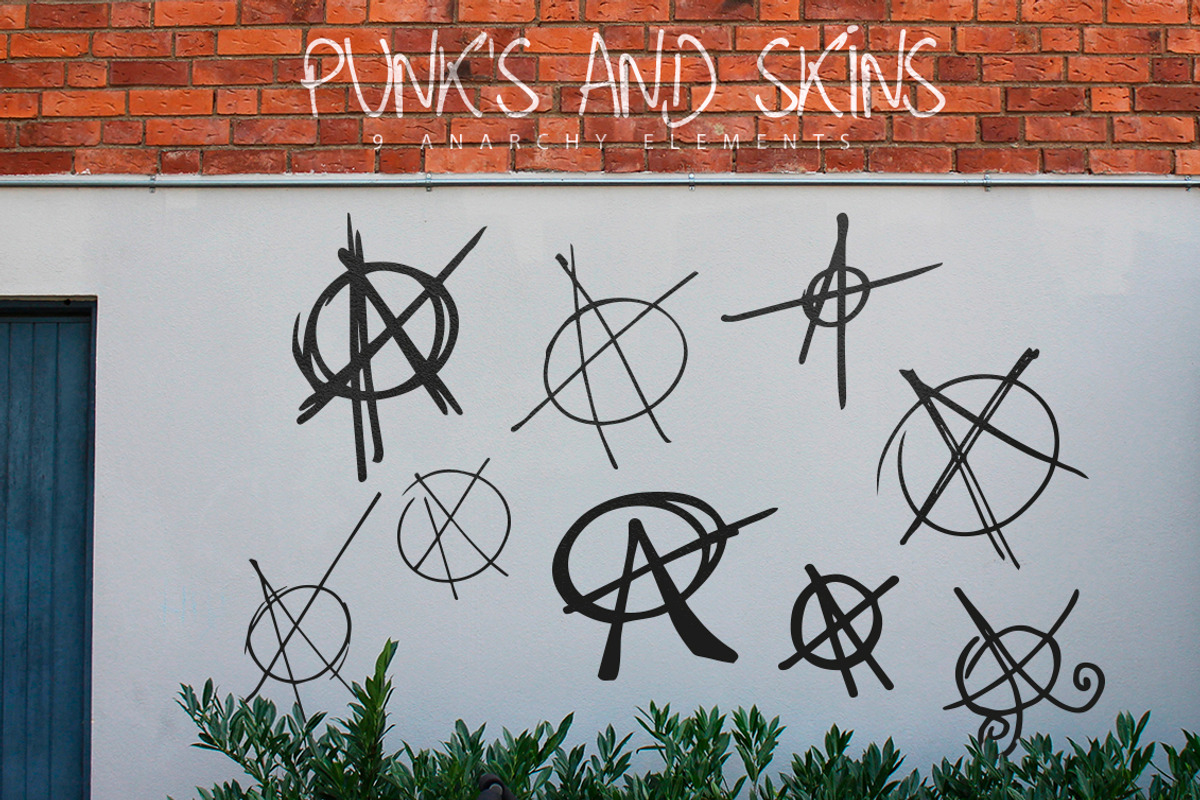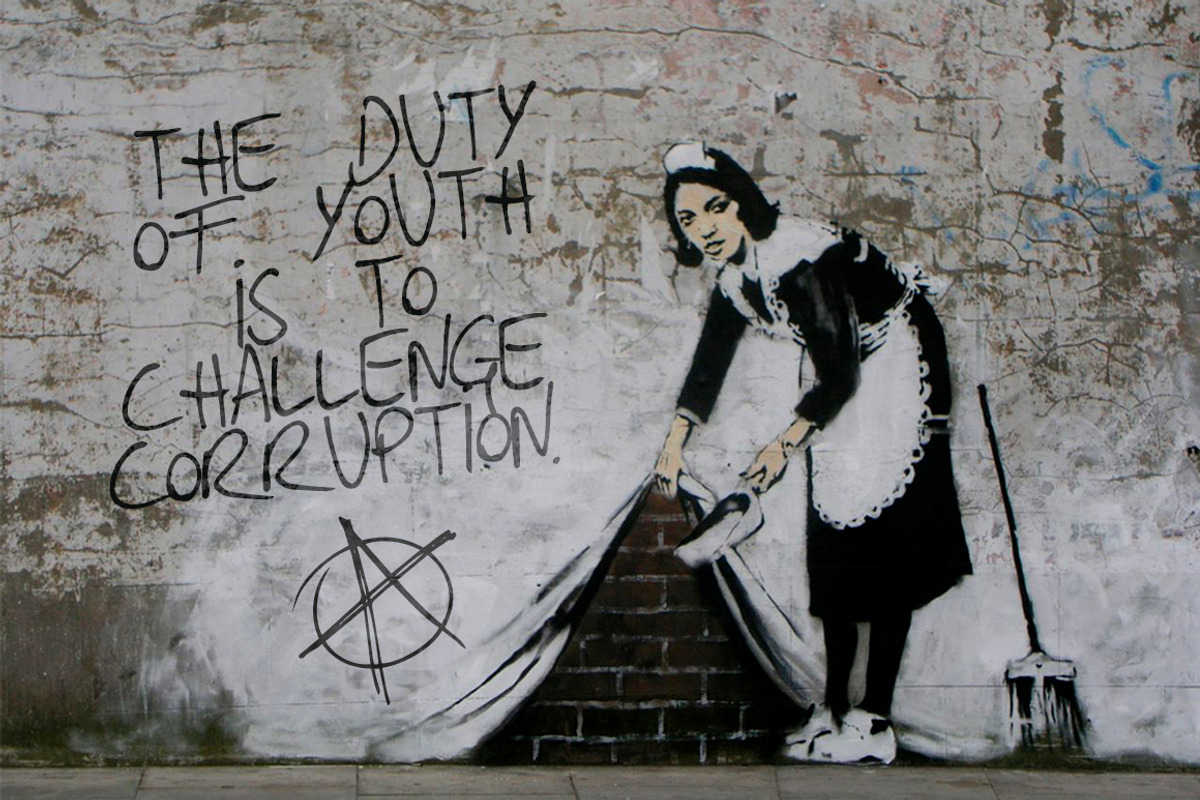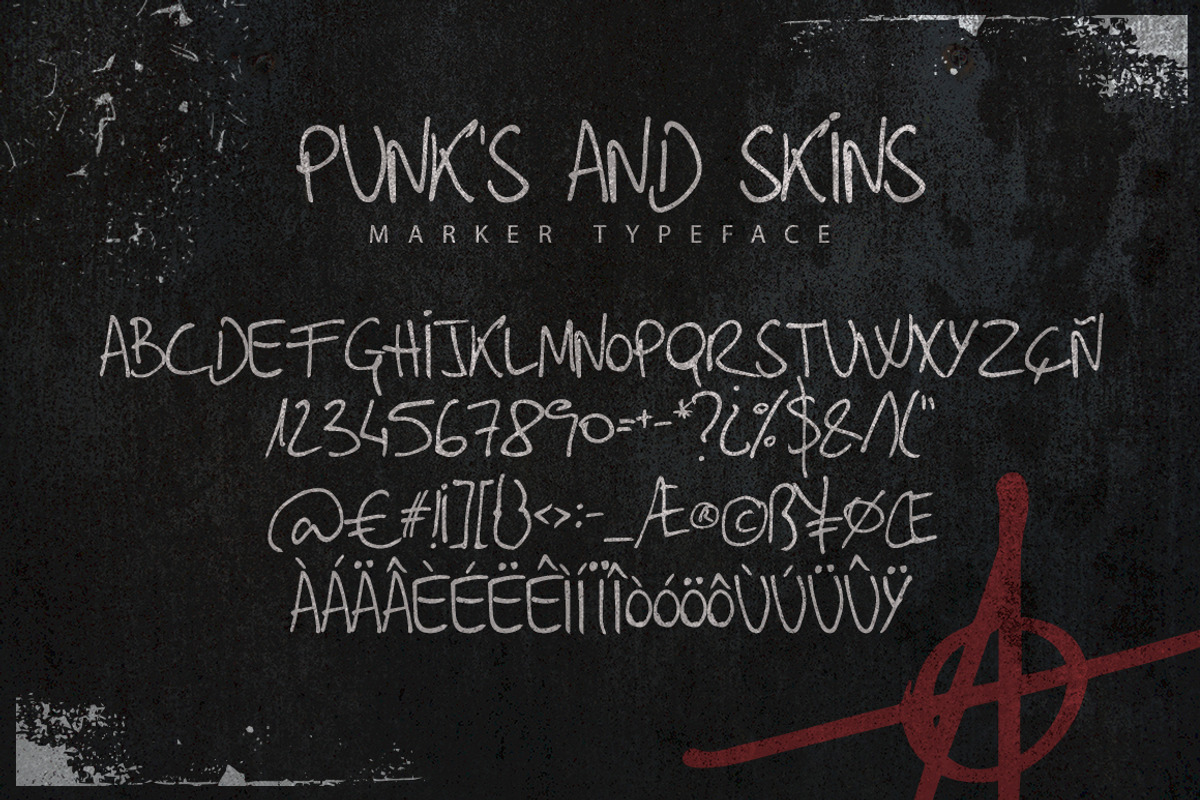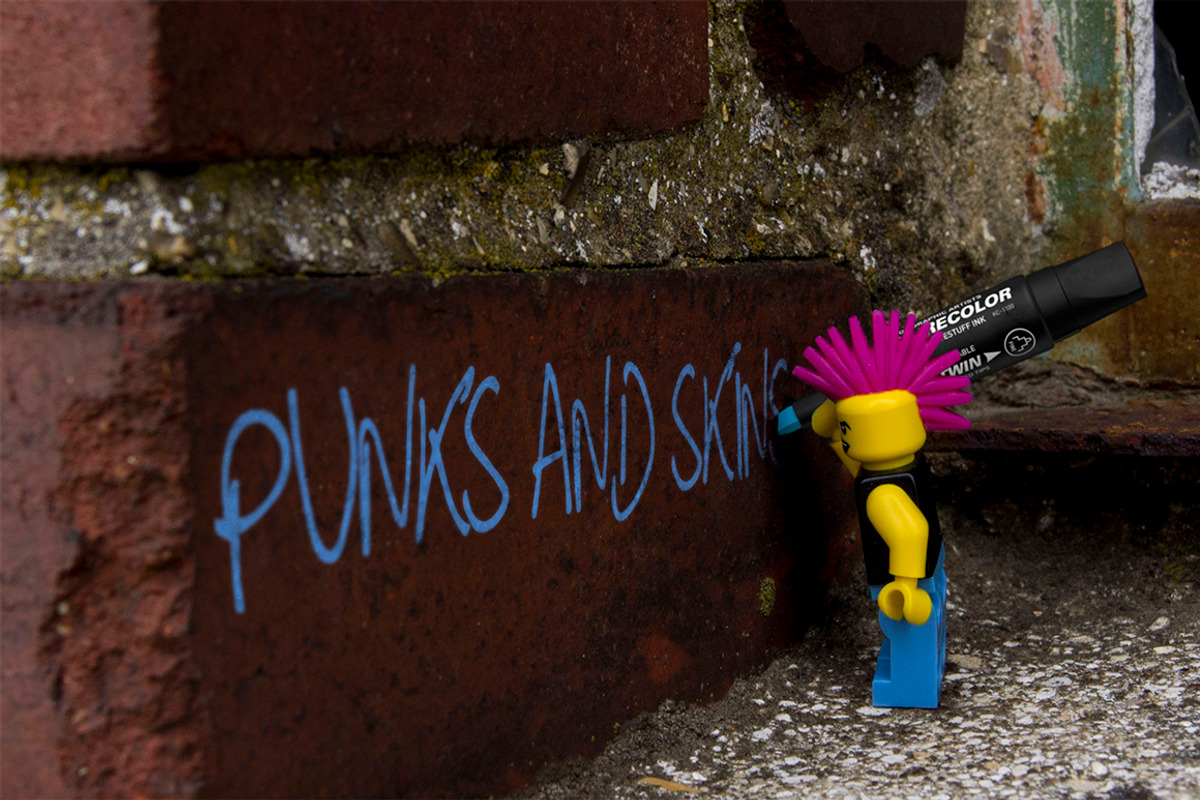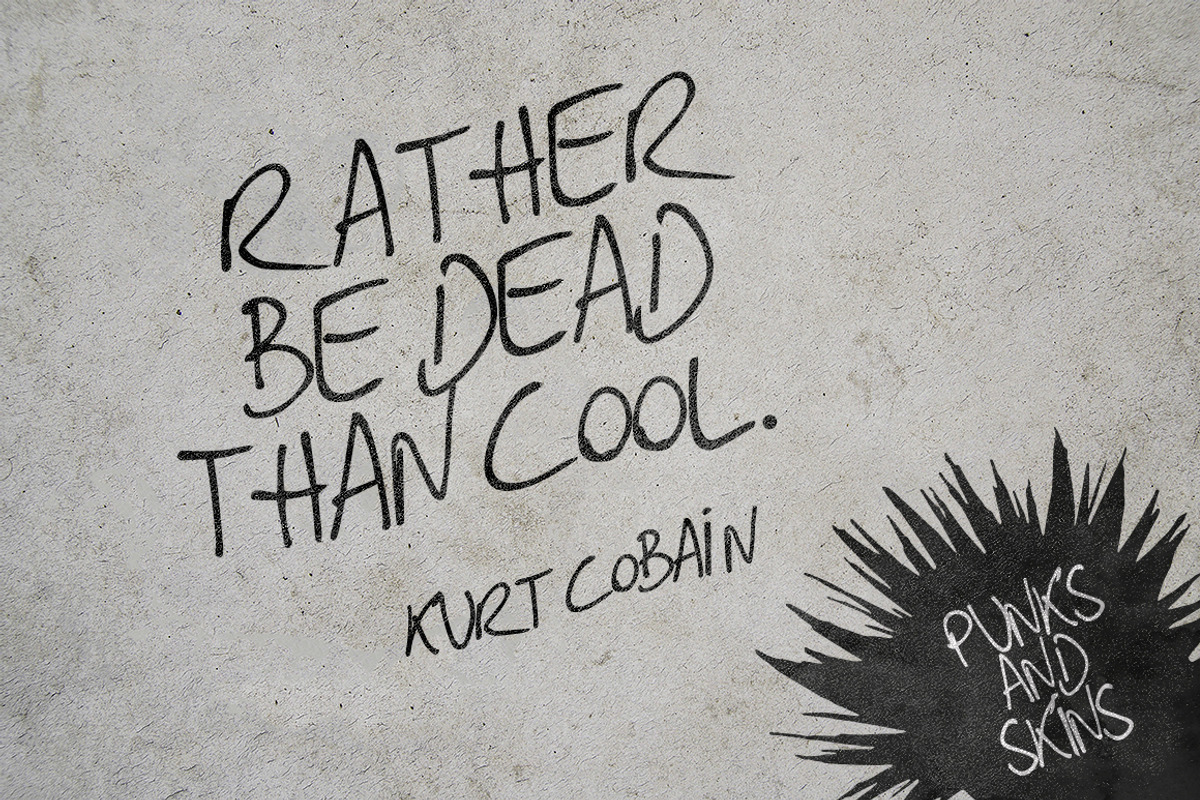
Punk's and Skins Typeface
Punk's and Skins Typeface by SmartDesigns is a font selected for branding, posters, packaging, typography.
Why Punk's and Skins Typeface is worth a look
Punk's and Skins Typeface by SmartDesigns fits naturally into Branding, posters, packaging, typography.